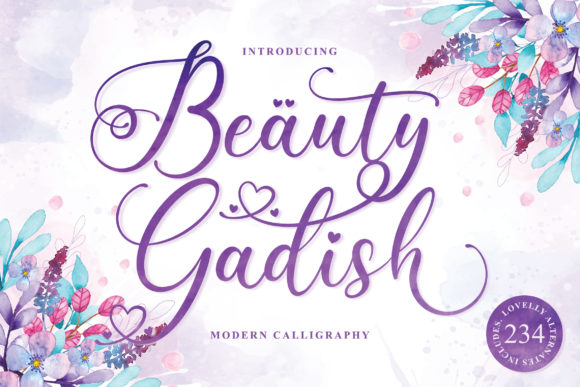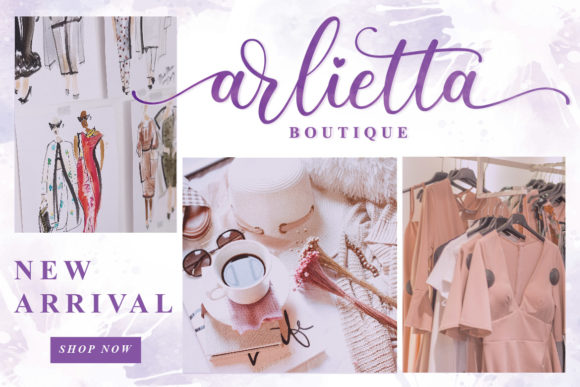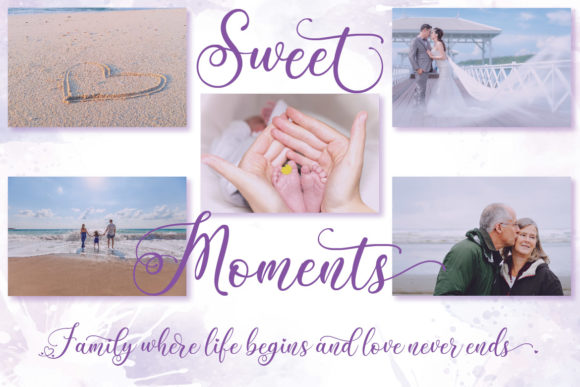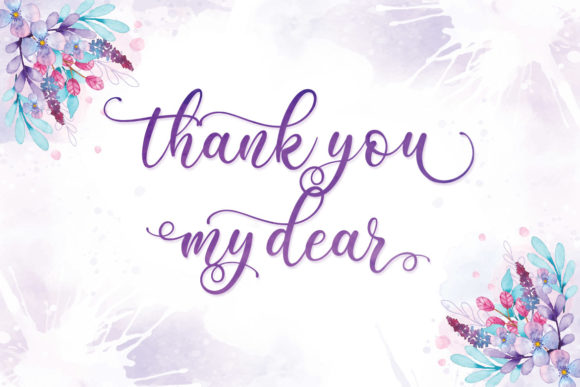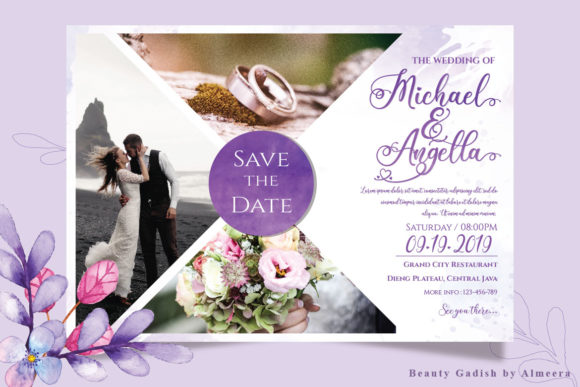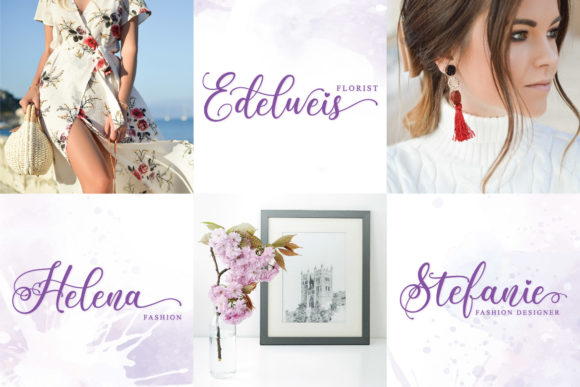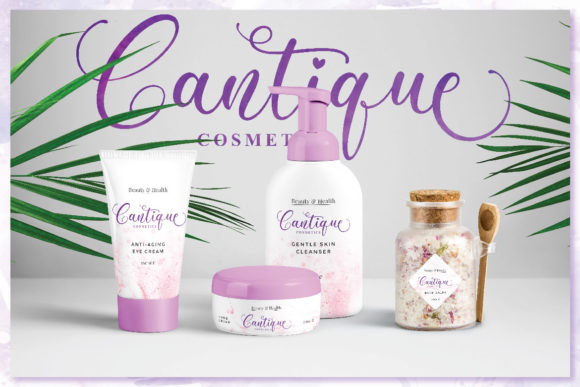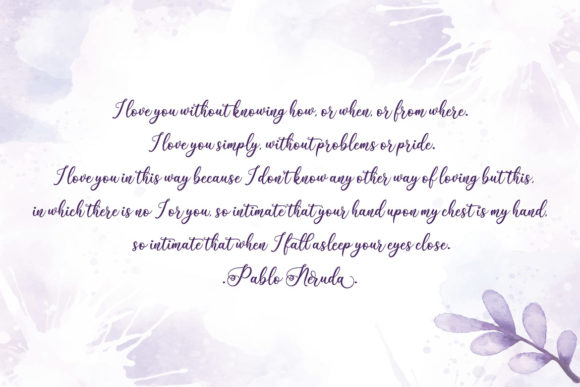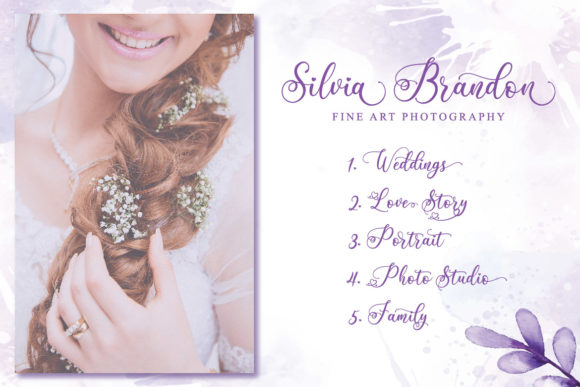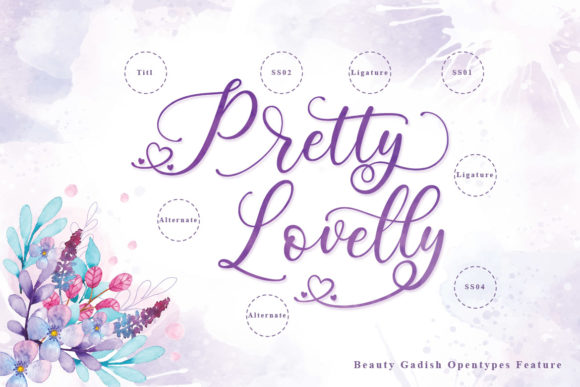
Beauty Gadish Font
About Beauty Gadish Font
Beauty Gadish is a lovely script font that features beautiful swashes. It will add a luxurious touch to any design project.